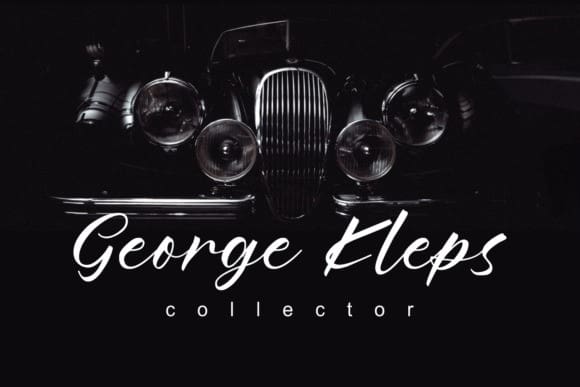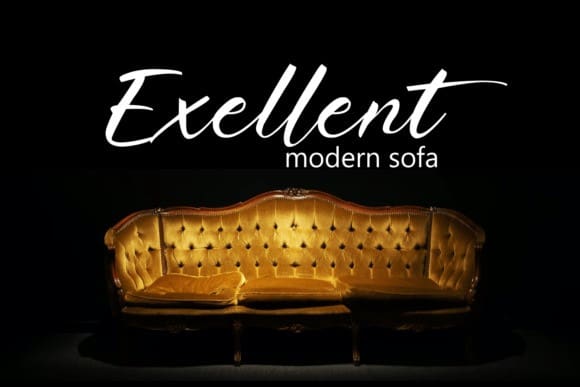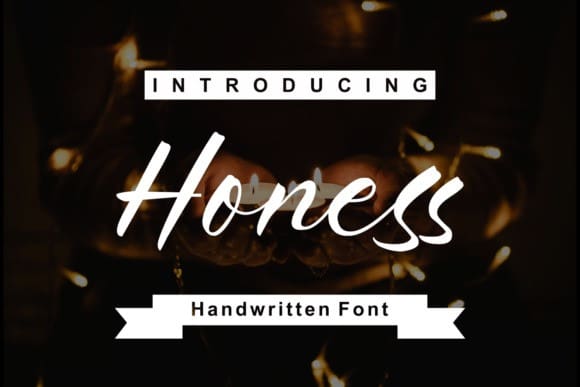
Honess Font
Honess Font is a luxurious handwritten script font with a thick classic feel this font is perfect for craft artists to elevate their work into beautiful masterpieces. Honess is also great for graphic designers looking for a cute font for their work.